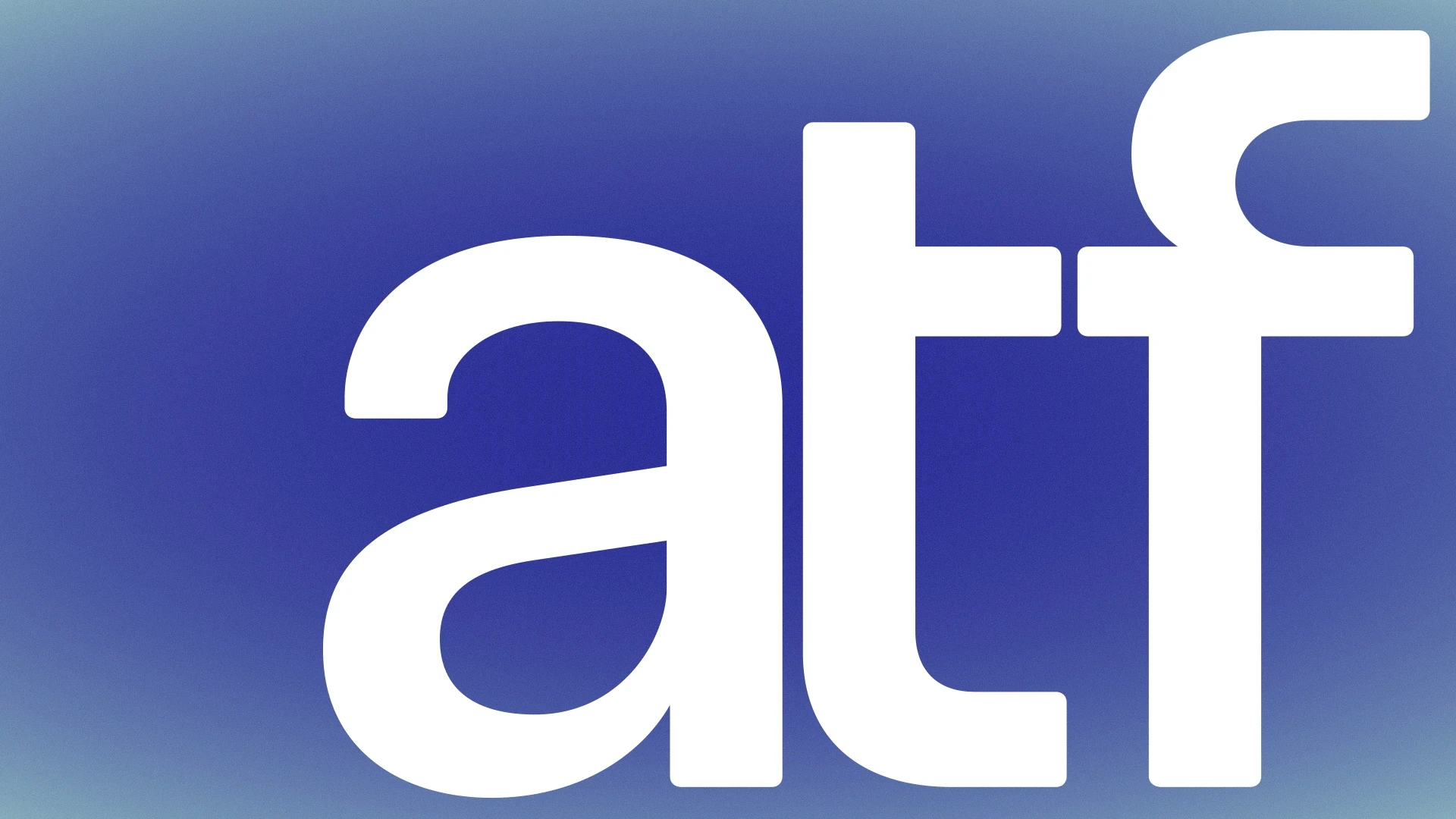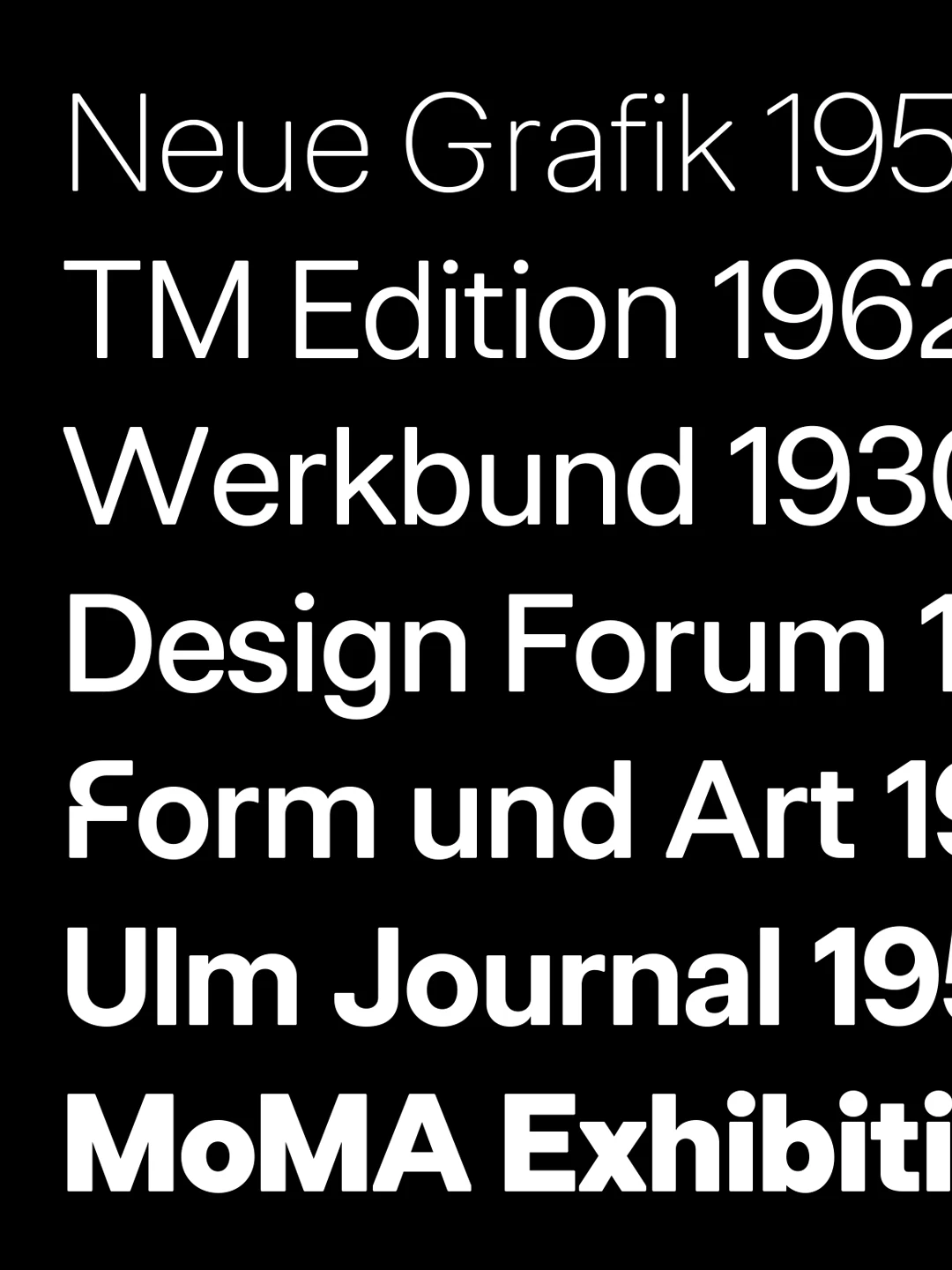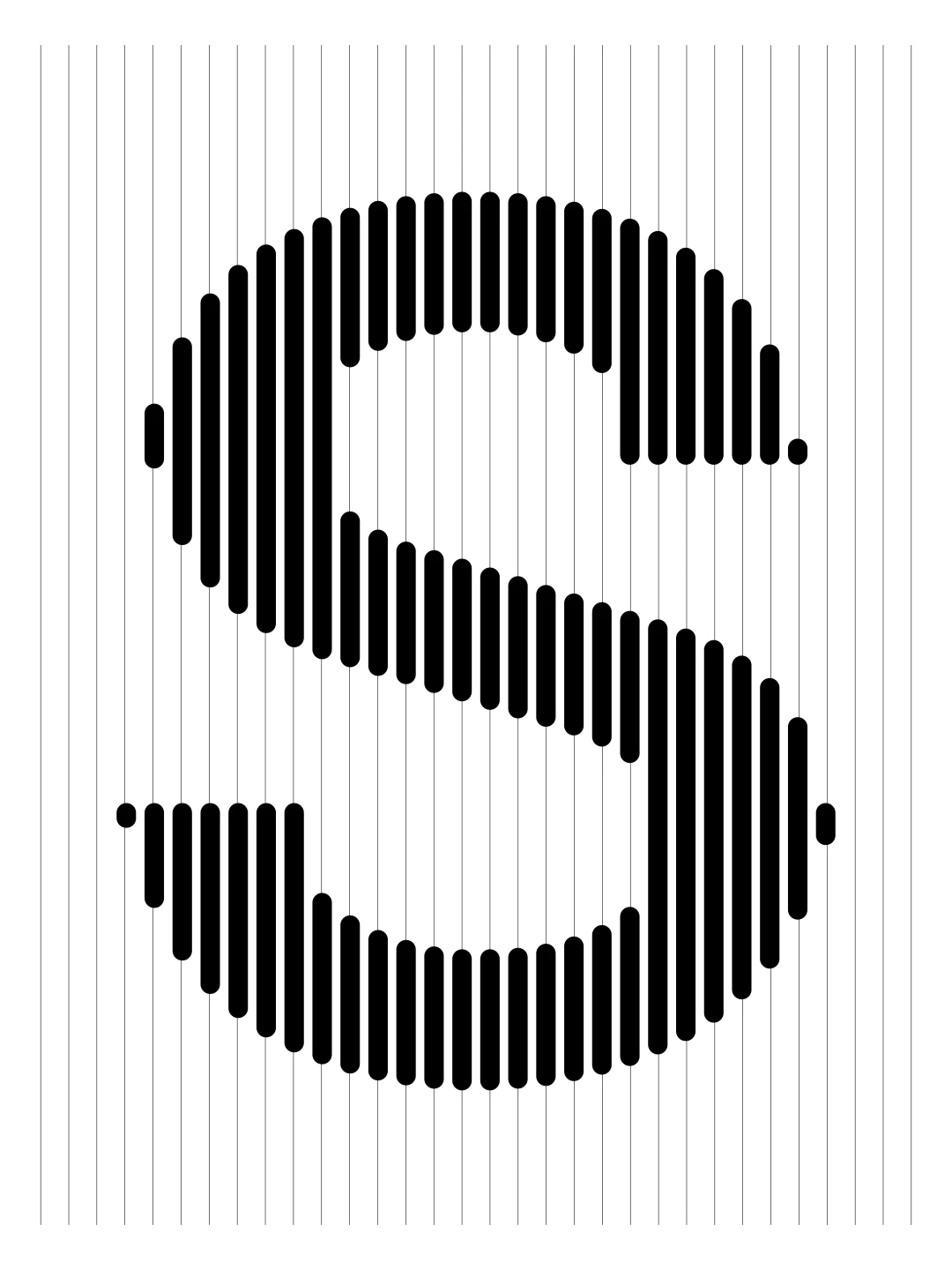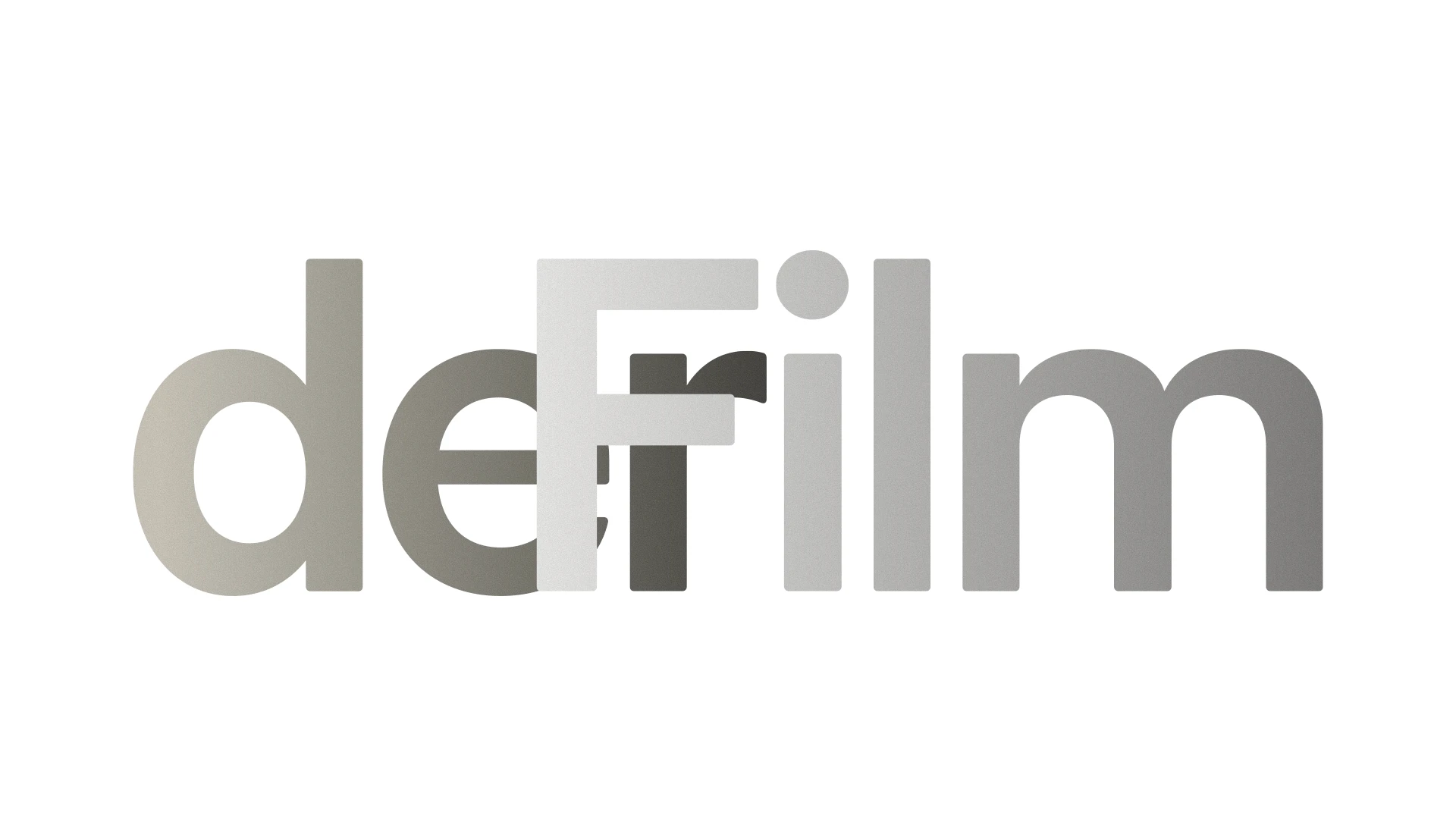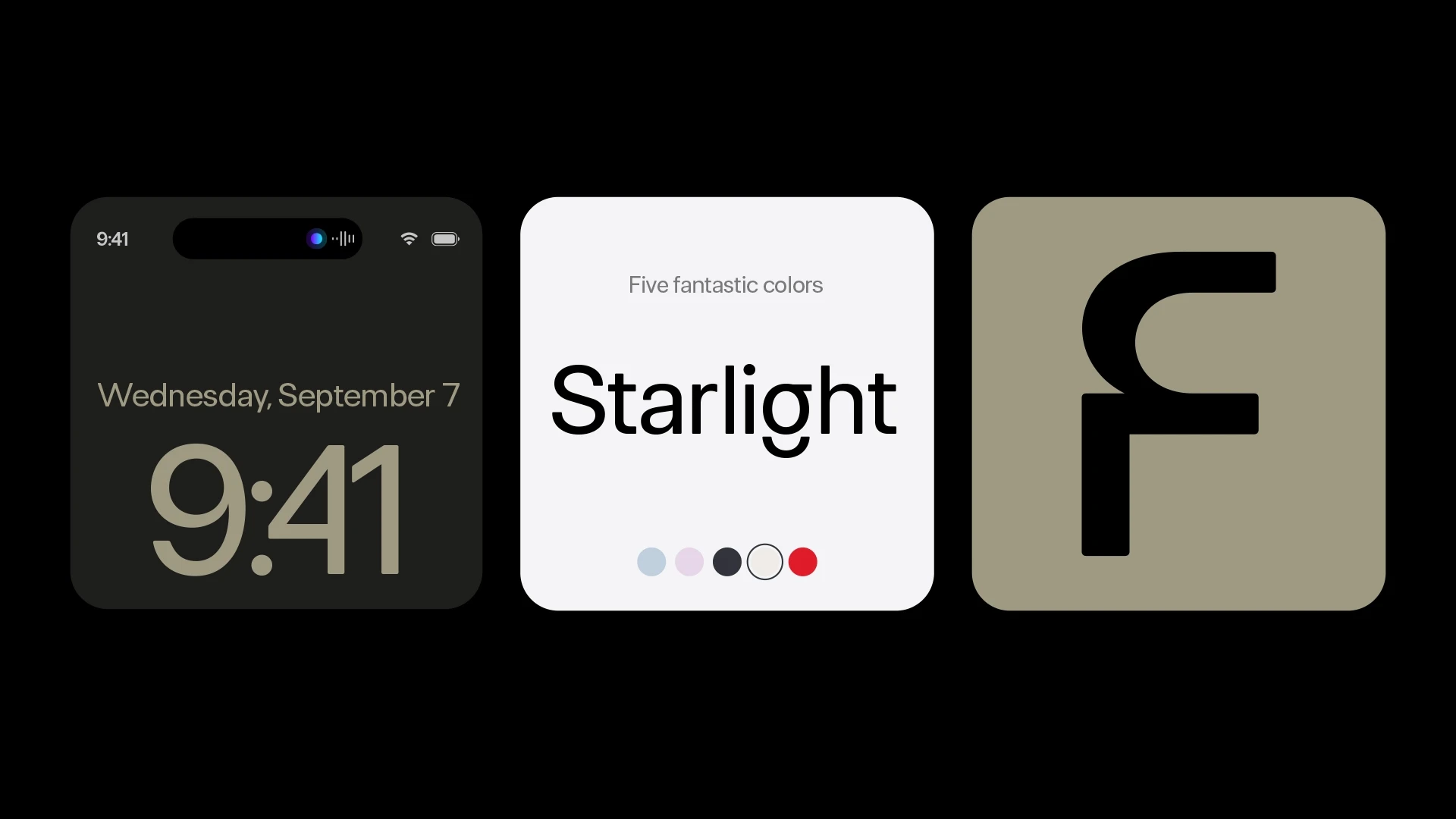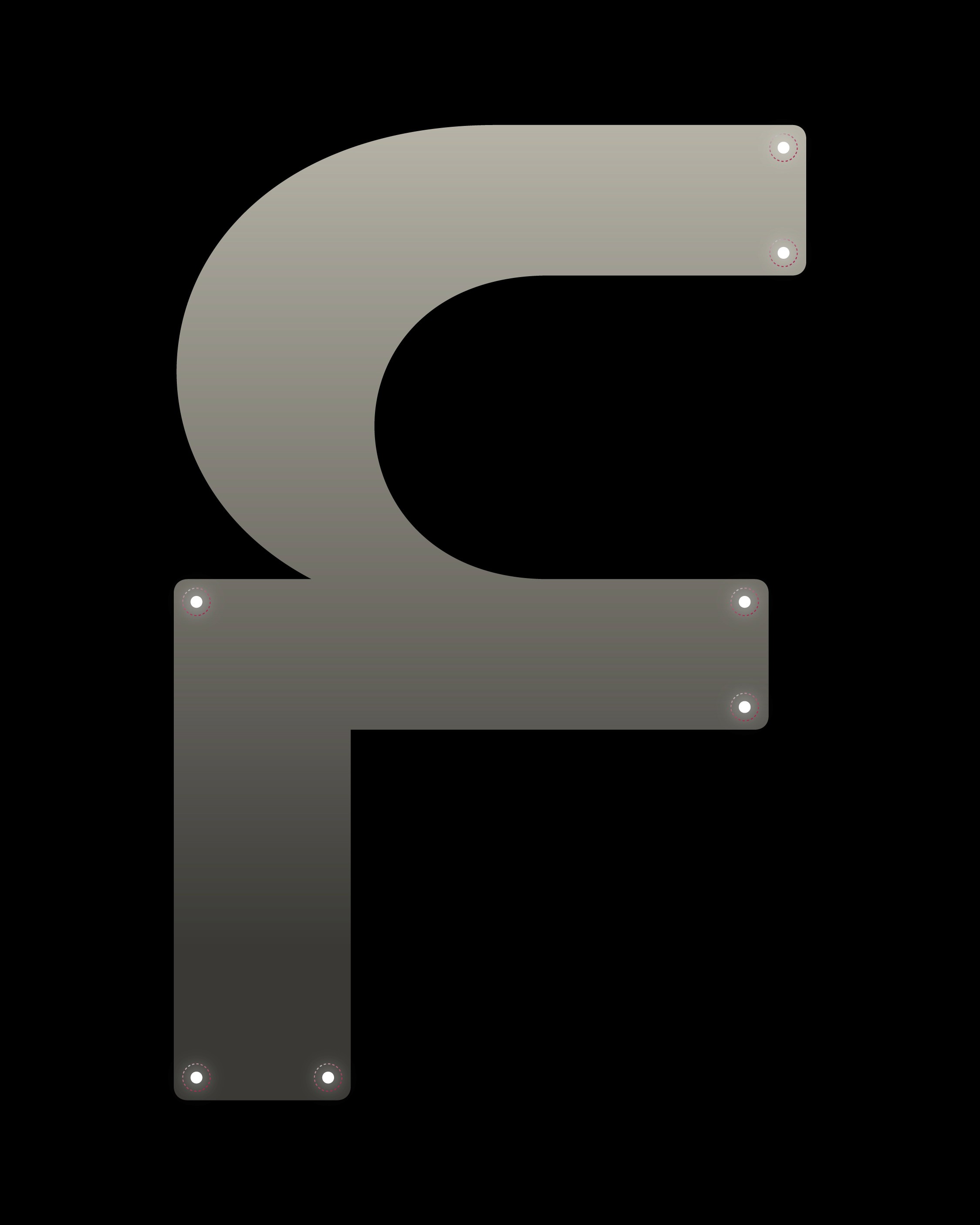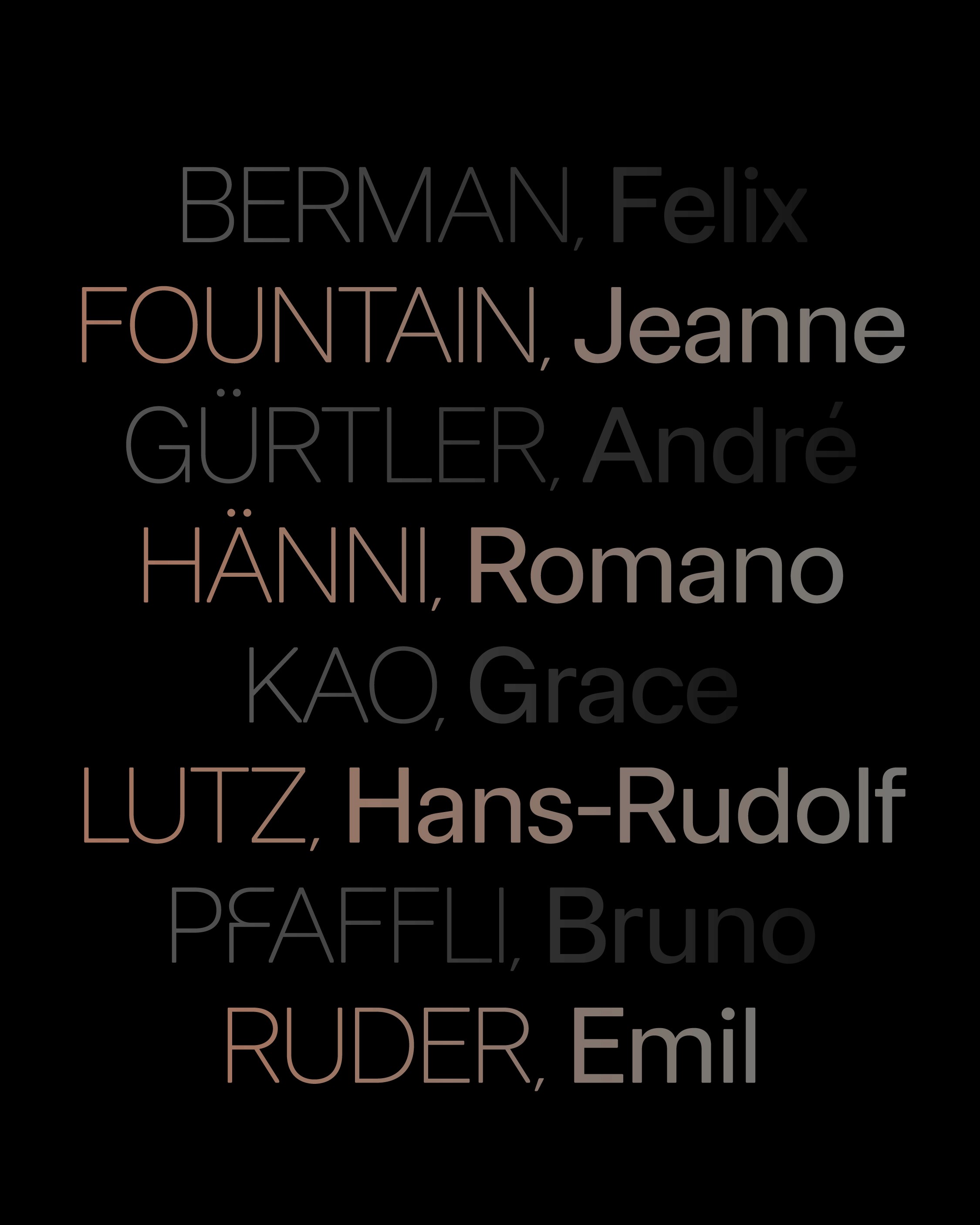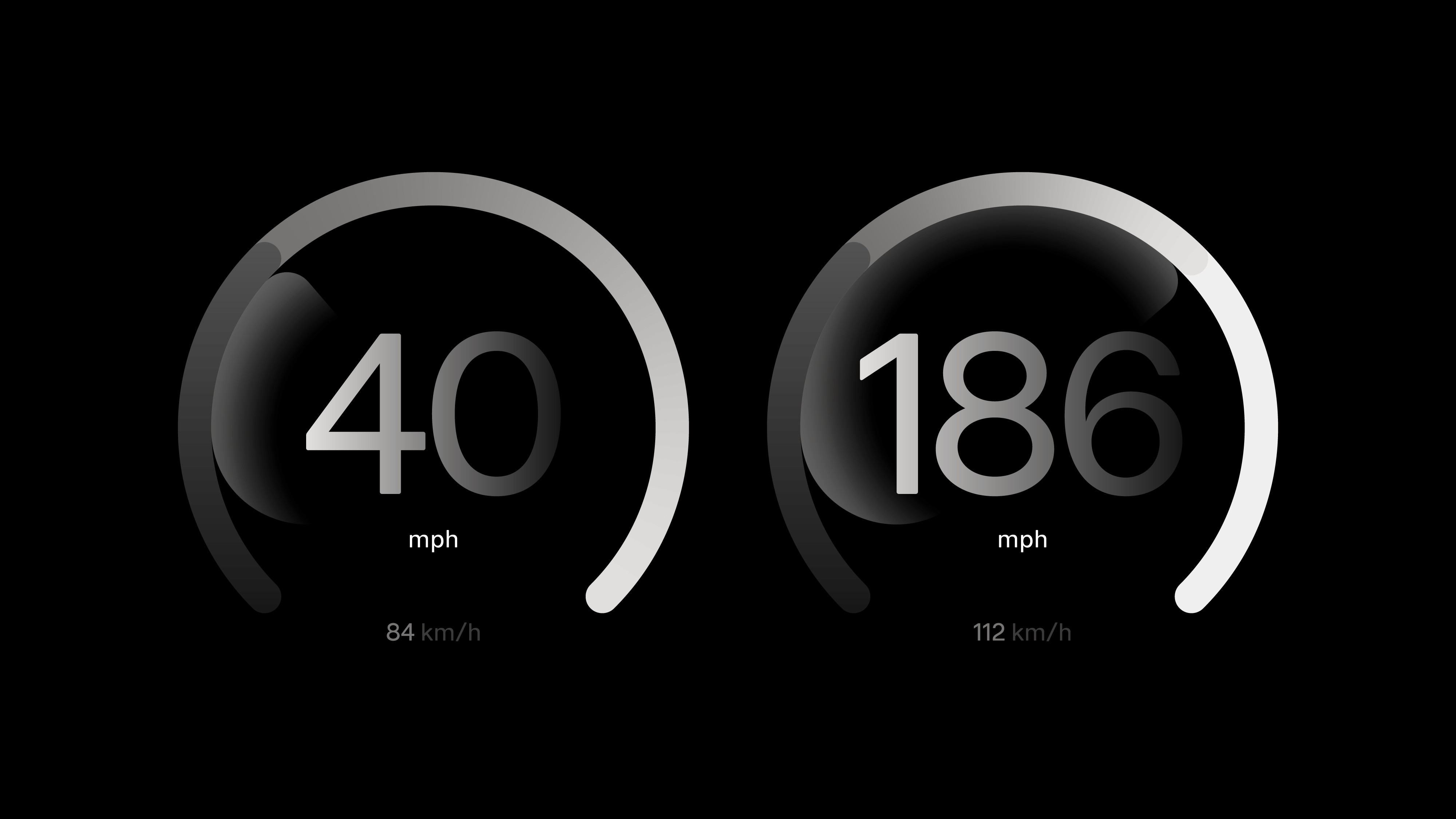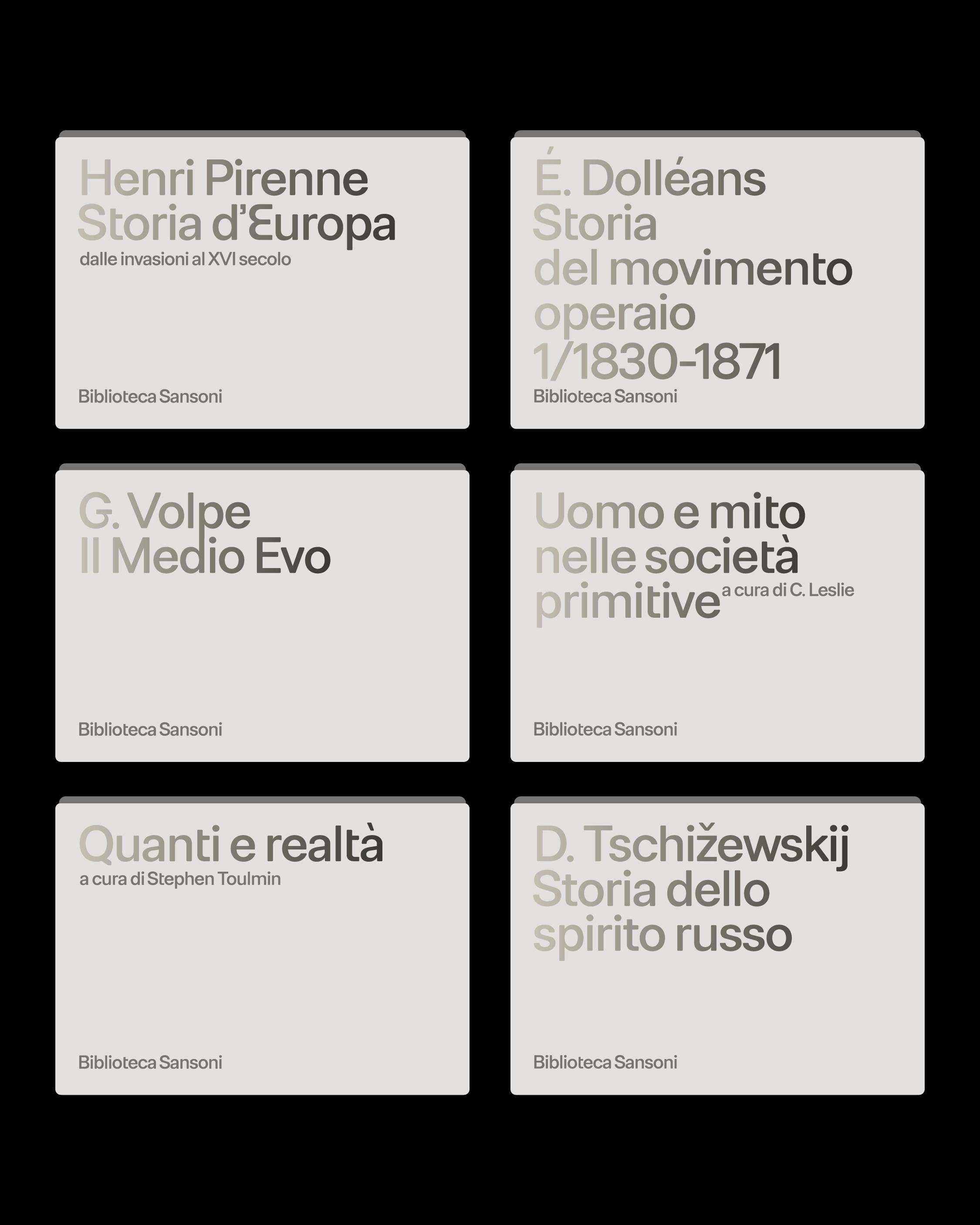
FH Oscar is a neo-grotesk with softened geometry. Built on the structural logic of early grotesques like Akzidenz and Breite Grotesk, it introduces rounded corners to reduce visual tension and enhance readability. Designed for versatility across screen and print, it includes Latin, Greek and Cyrillic support, along with stylistic alternates for editorial and interface use. FH Oscar balances typographic neutrality with a distinctly human touch.
Classification: Sans-serif / Neo-Grotesque
In major metropolitan areas like Amsterdam, Copenhagen, or Seoul, wayfinding is not just about maps. It’s about maintaining urban rhythm. A well-designed typeface like FH Oscar Pro supports high visibility across multiple platforms. From platform signage to real-time travel apps, clarity in motion ensures a smoother user experience for all travelers.
Typography plays a vital role in how we move through public spaces. Sans serif typefaces are commonly chosen for transportation systems because of their legibility at various distances. Whether you’re reading a digital departure board or printed city map, consistency in form and spacing contributes to user confidence and flow.
Across Europe, metro signage is being updated to meet new accessibility standards. This includes the use of clear, geometric sans serif fonts, improved contrast ratios, and multilingual support. FH Oscar Pro fits naturally into this evolution, providing a neutral tone that’s functional yet modern. Perfect for public-facing design.
The city is a system of signs. Every intersection, station name, and bus line becomes part of a large-scale information hierarchy. Designers rely on typographic clarity to guide pedestrians, drivers, and commuters alike. In such spaces, a typeface must serve the message, not distract from it and this is where Oscar Pro excels.
A seamless passenger experience depends on the flow of accurate, clearly presented information. Delays, transfers, and alternate routes must be communicated quickly and calmly. By using a sans serif font that holds shape and tone across weights and sizes, signage systems can remain both adaptable and dependable in dynamic environments.
Municipal design is often underappreciated, yet it directly impacts how people experience a city. The choice of typeface affects clarity, trust, and efficiency. In public systems, visual noise must be minimized. FH Oscar Pro offers a restrained, thoughtful aesthetic that complements wayfinding design, making it ideal for smart cities and digital infrastructure.
A typeface like FH Oscar Pro doesn't just sit on the surface. It integrates into the rhythm of a city. It labels movement, narrates transition, and calms the visual chaos of information overload. In metro networks, airports, or municipal guides, the font becomes a quiet but powerful part of the city’s communication language.